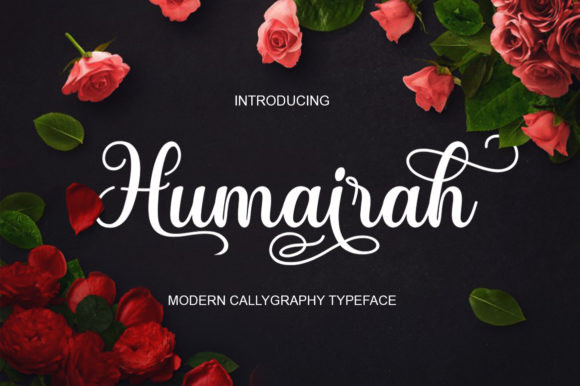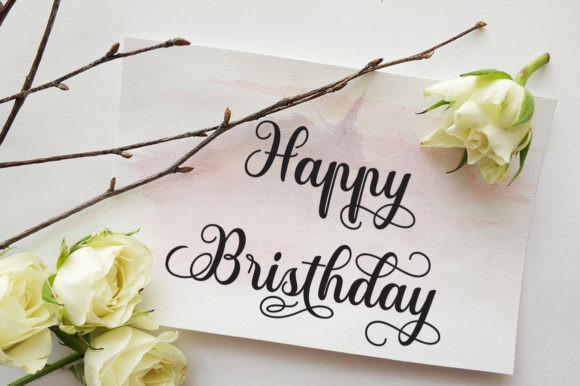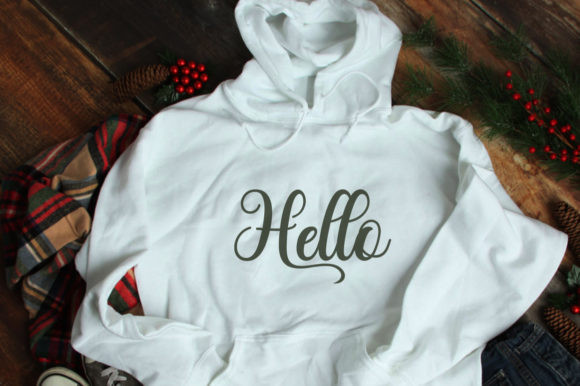
Humairah Font
Humairah is a new and modern script font. It will elevate a wide range of design projects to the highest level, be it branding, headings, wedding designs, invitations, signatures, logos, labels, and much more!